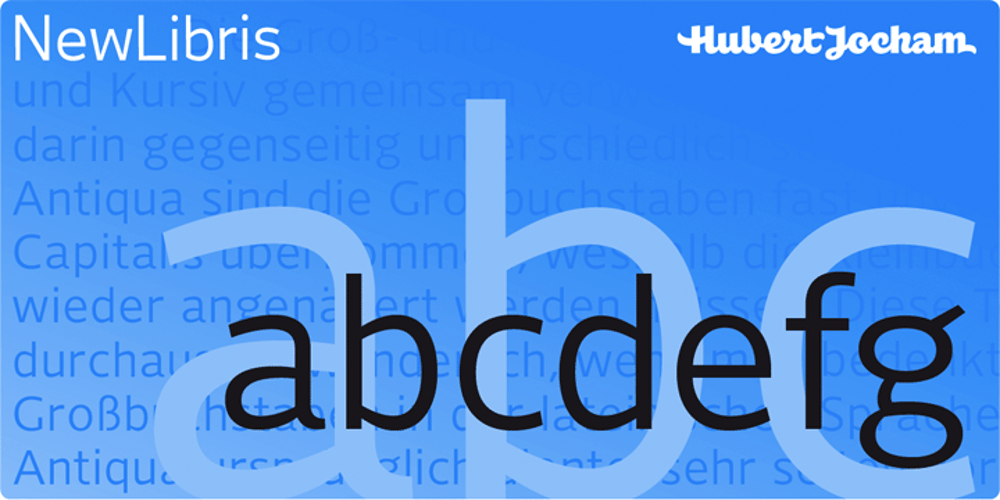
NewLibris
NewLibris font
NewLibris Font Family was designed by published by Hubert Jocham Type. NewLibris contains 22 styles and family package options. The first version of Libris I designed in London in 1997 when I worked for Frank Magazine. Later Libris was used in the magazine for text and display. In 1999 Libris was chosen as the corporate typeface of Bally Switzerland. I also was involved in the design of the entire branding. NewLibris is the version that was published in my own shop. – What was the inspiration for designing the font? NewLibris is an elegant contemporary easy to read sans serif. It has a wide variety of weights and proportions that are easy to use in corporate branding and magazines. – What are its main characteristics and features? contemporary humanist legible sans serif – Usage recommendations: corporate branding and magazines and other publications